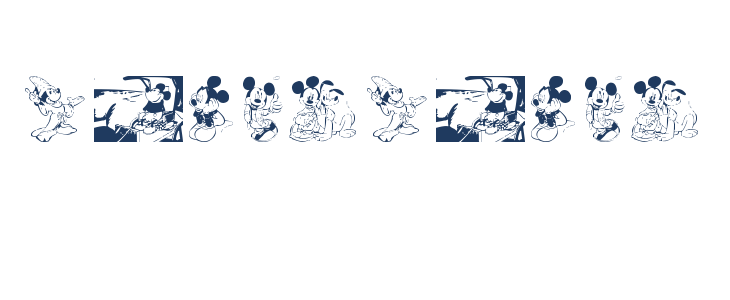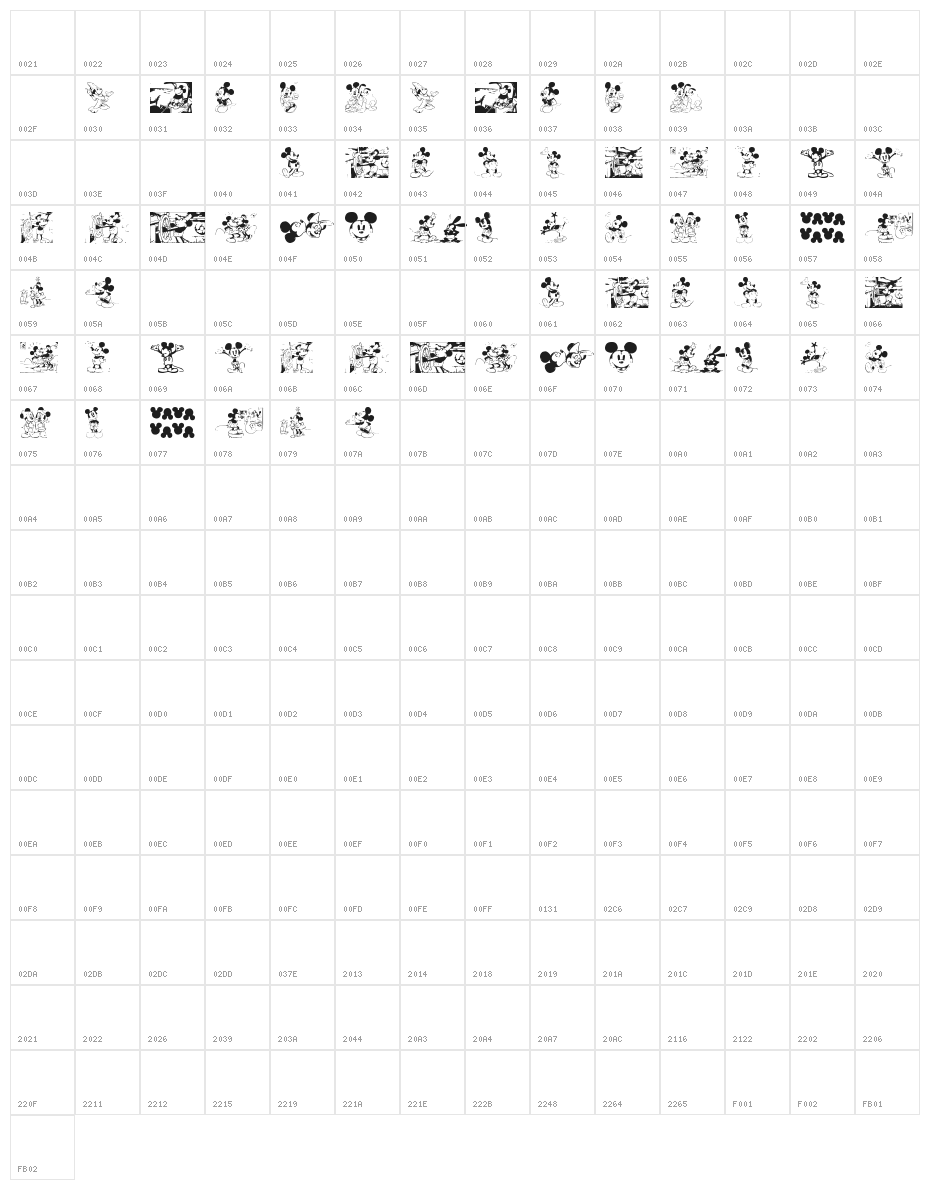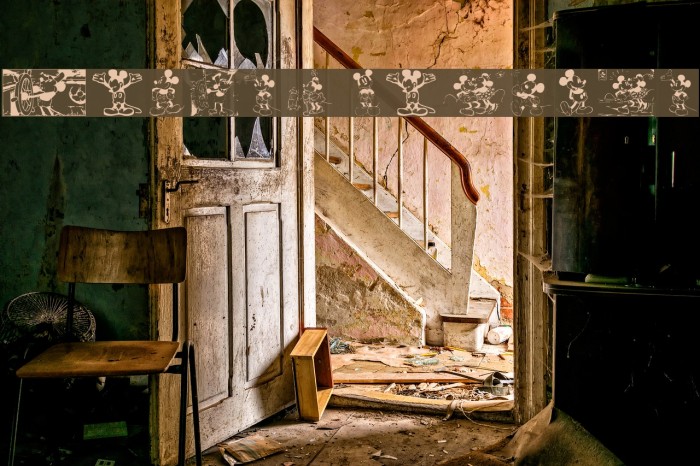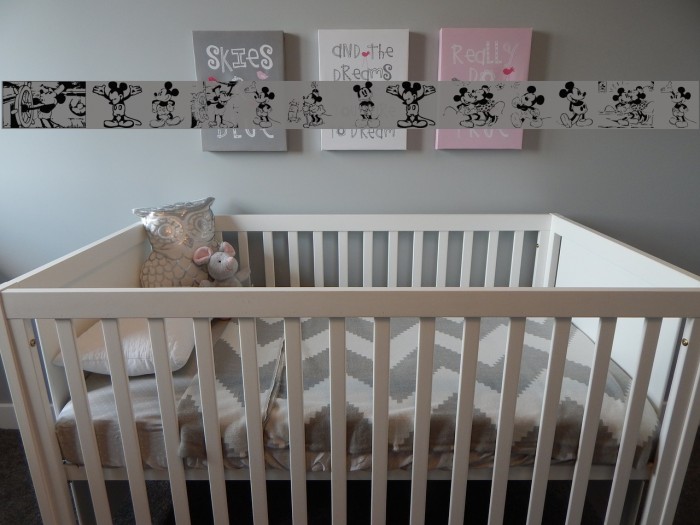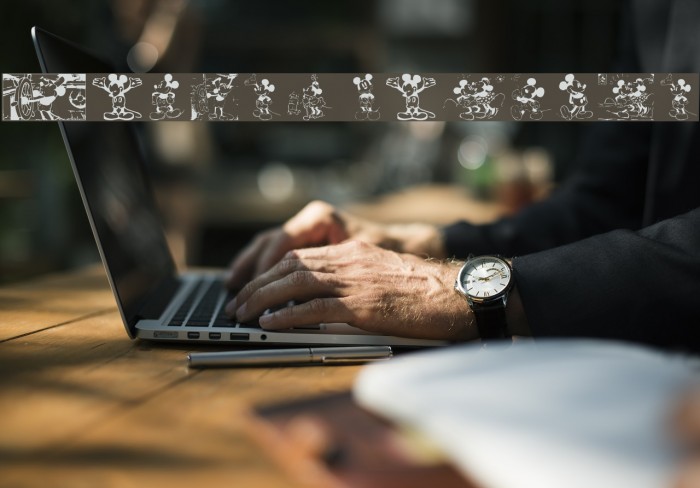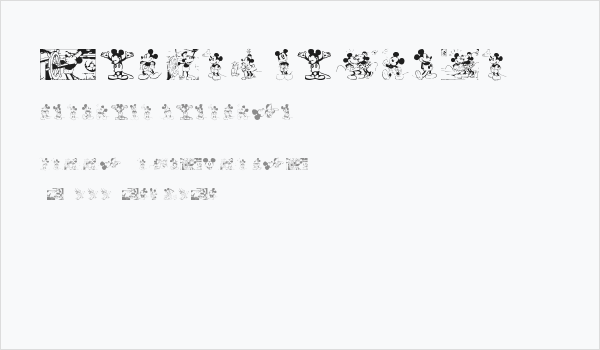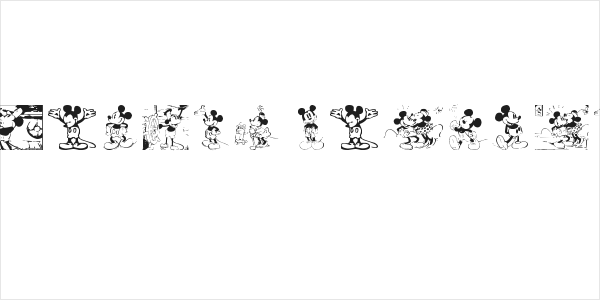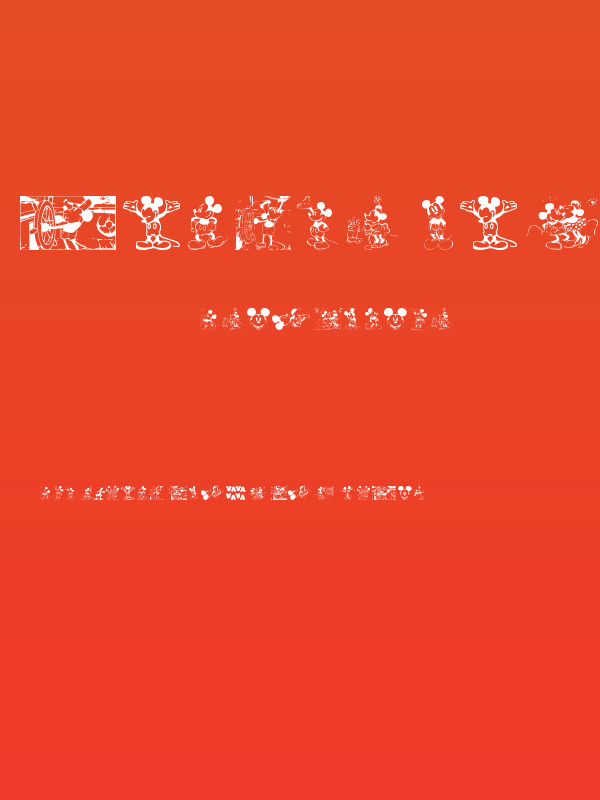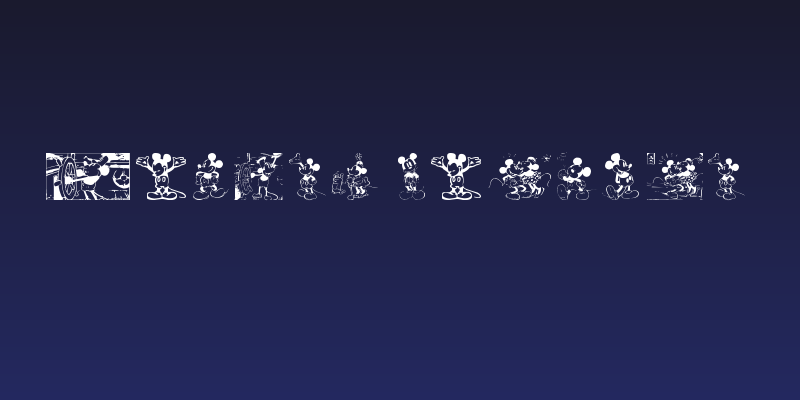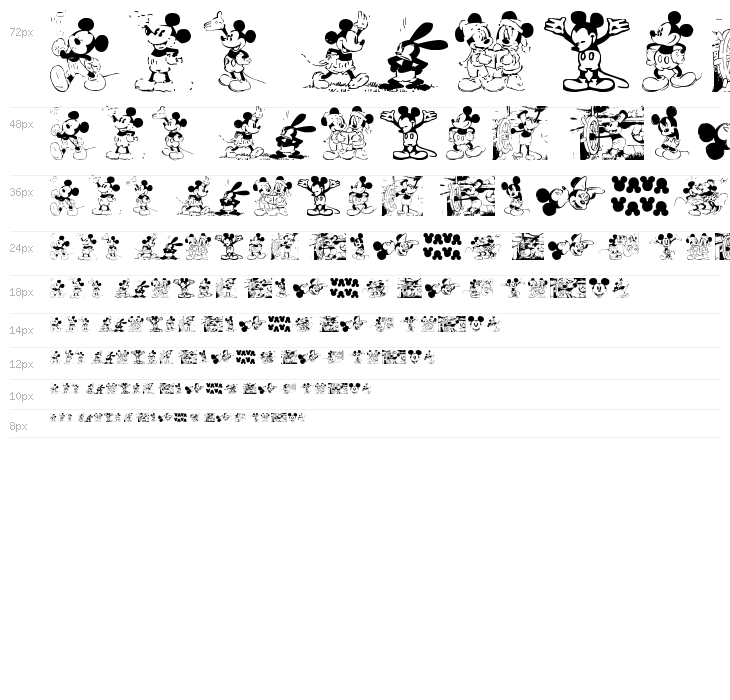
Mickey Vintage Font
Mickey Vintage Description
This is not a traditional font but a collection of vintage cartoon character illustrations, each representing a letter, number, or symbol. The glyphs are highly decorative, featuring detailed drawings rather than standard typographic forms.
| Overall Style | Vintage, Decorative |
| Use Case | Decorative purposes, not suitable for body text. |
| Proposed Projects | ChildrenΓ’β¬β’s party invitations, themed posters, novelty merchandise, scrapbooking, or fan art. |